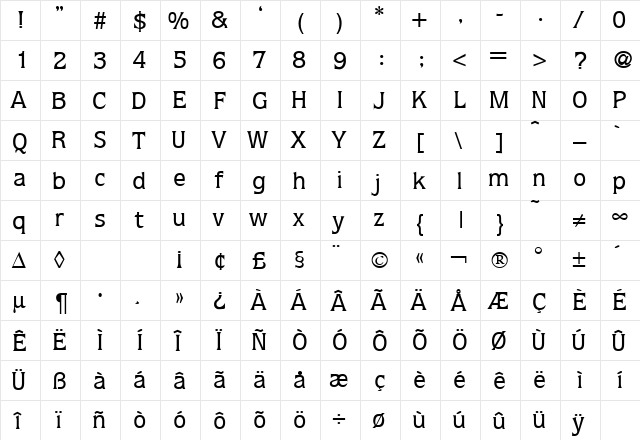
QuotaMedium Regular
Design Context for QuotaMedium Typeface
QuotaMedium is a composed and adaptable typeface that performs quietly and consistently across a wide range of design contexts.